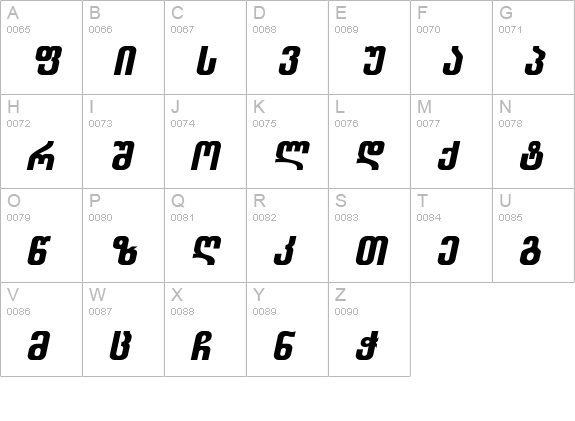
Balavery-ITV Italic Font Details
Balavery-ITV Italic is a distinctive, italic variant in the Balavery typeface family \xE2\x80\x94 well suited to design and typography projects.
Introducing Balavery-ITV Italic font, a sleek and modern typeface designed to add a touch of sophistication to your projects. With its elegant curves and stylish appearance, this font is perfect for creating eye-catching designs that stand out from the crowd. The italic style adds a sense of movement and elegance to your text, making it ideal for logos, branding, and editorial design. What sets Balavery-ITV Italic font apart is that it is available for free download at FontsMarket.com. This means you can easily access this premium font without any cost, making it a valuable addition to your font collection. Whether you're a designer looking to elevate your work or a hobbyist wanting to enhance your projects, Balavery-ITV Italic font is the perfect choice for adding a touch of sophistication to your designs. Download it today and see the difference it can make in your creative endeavors!